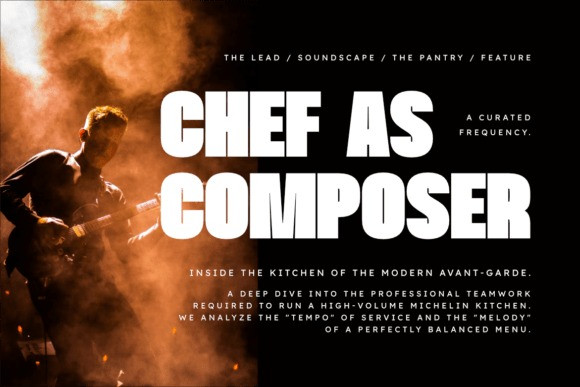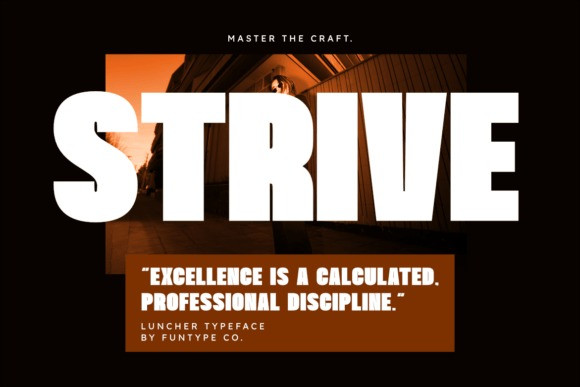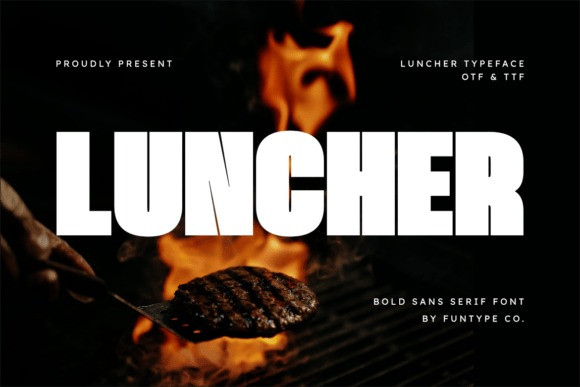
Luncher Font
Luncher Font is a bold and powerful sans serif font designed for high-impact and precise typography. With its refined solid structure and clean, heavy lines, this font is perfect for strong headlines, professional food branding, industrial logos, and high-impact digital posters. Its confident and balanced design gives your visuals a striking, professional, and appetizing look. Provided in OTF and TTF formats for maximum compatibility across all design platforms.